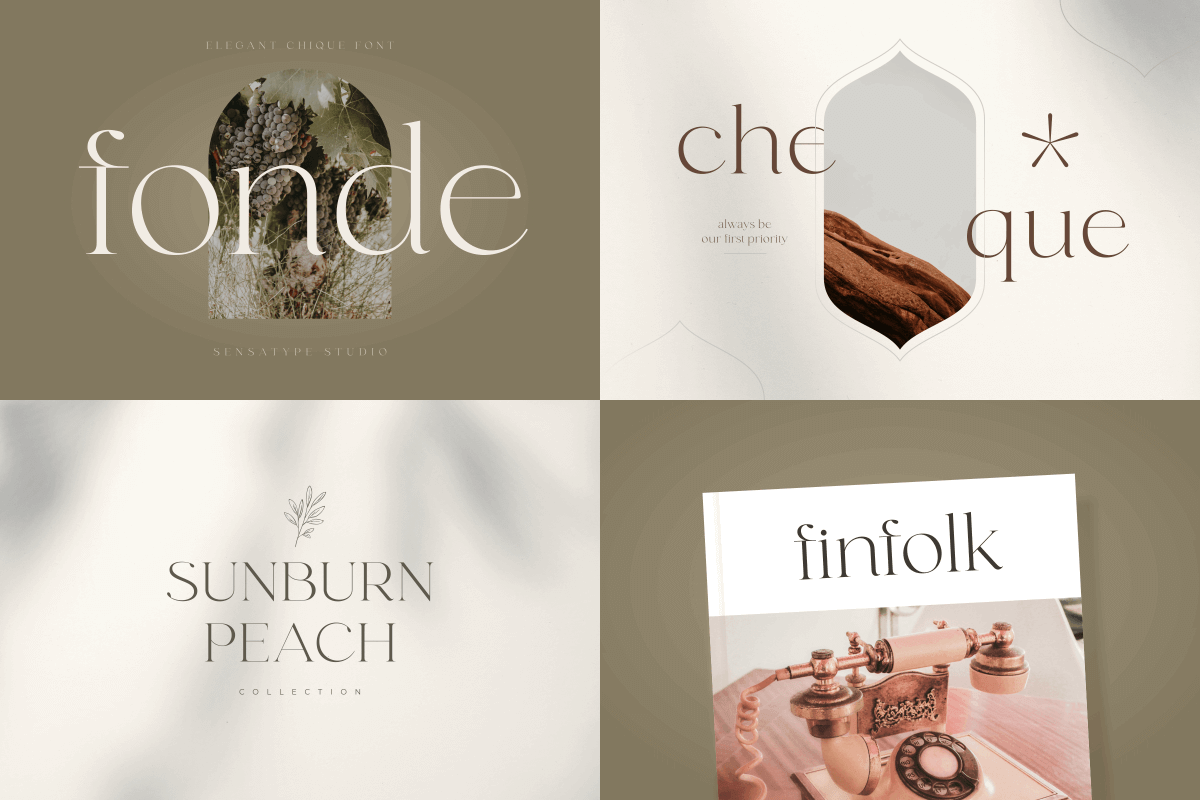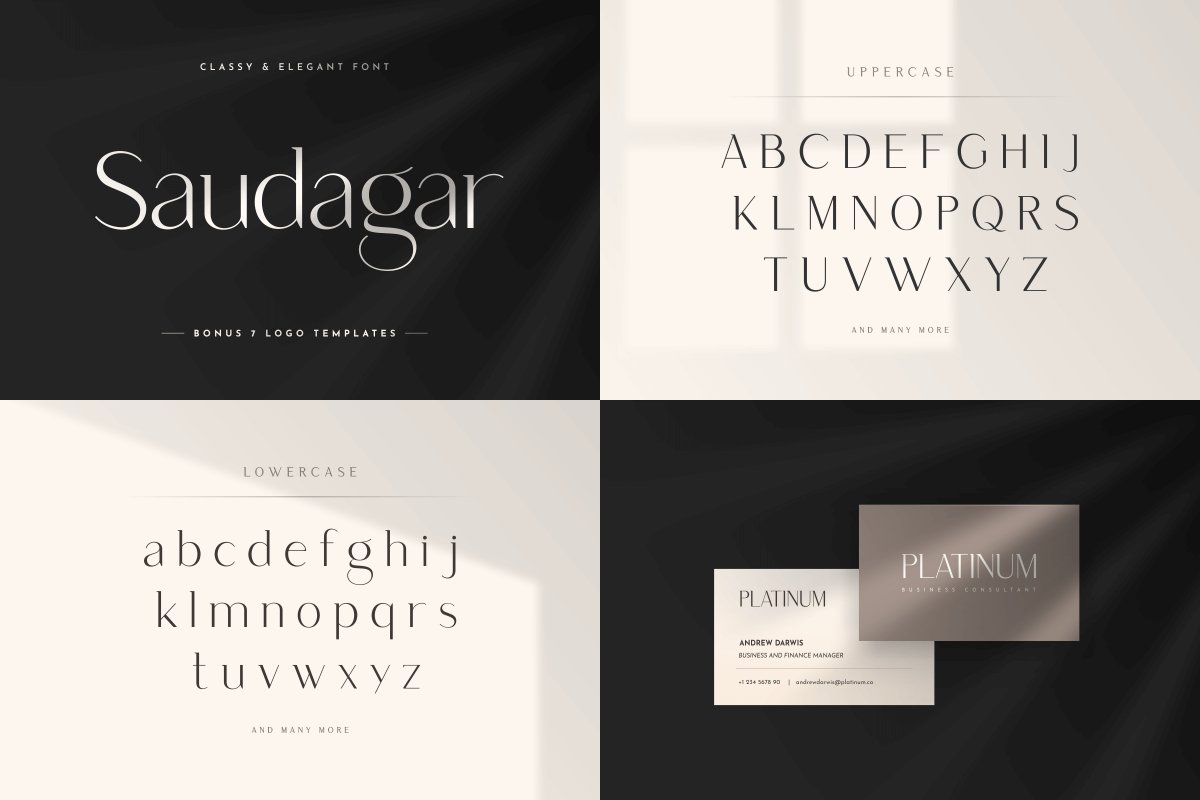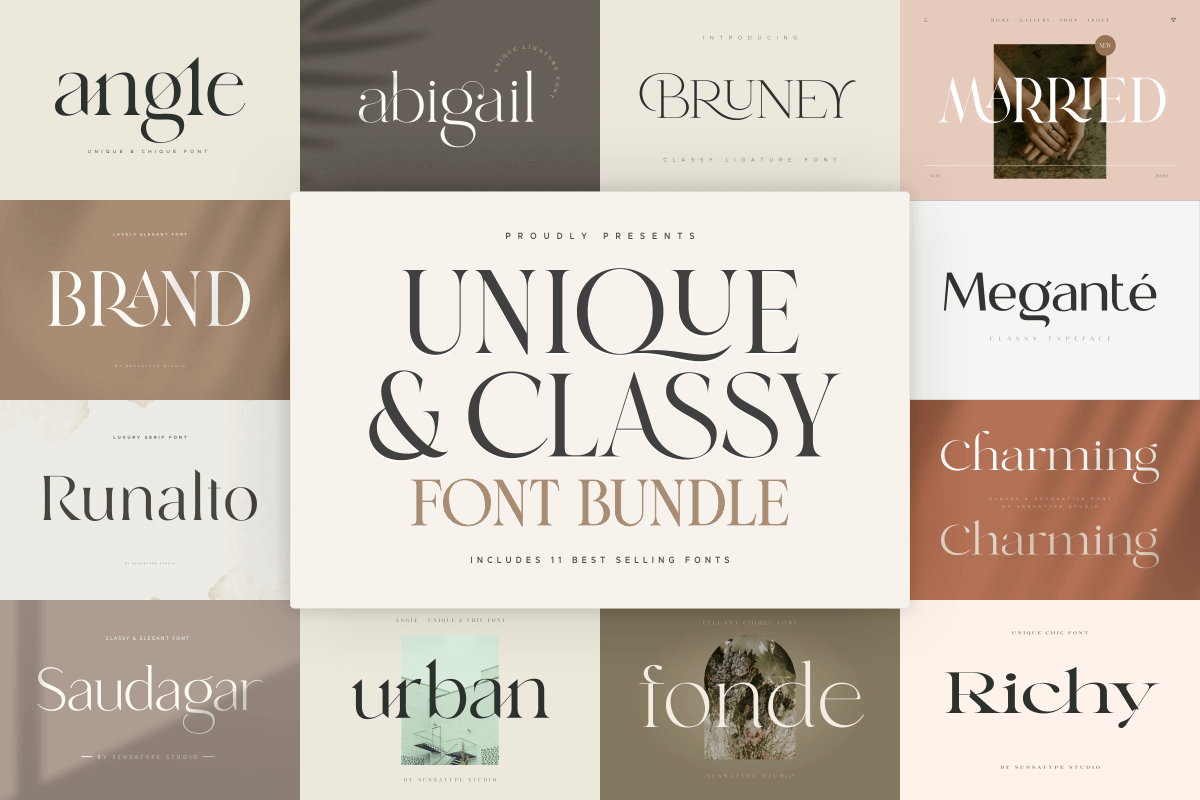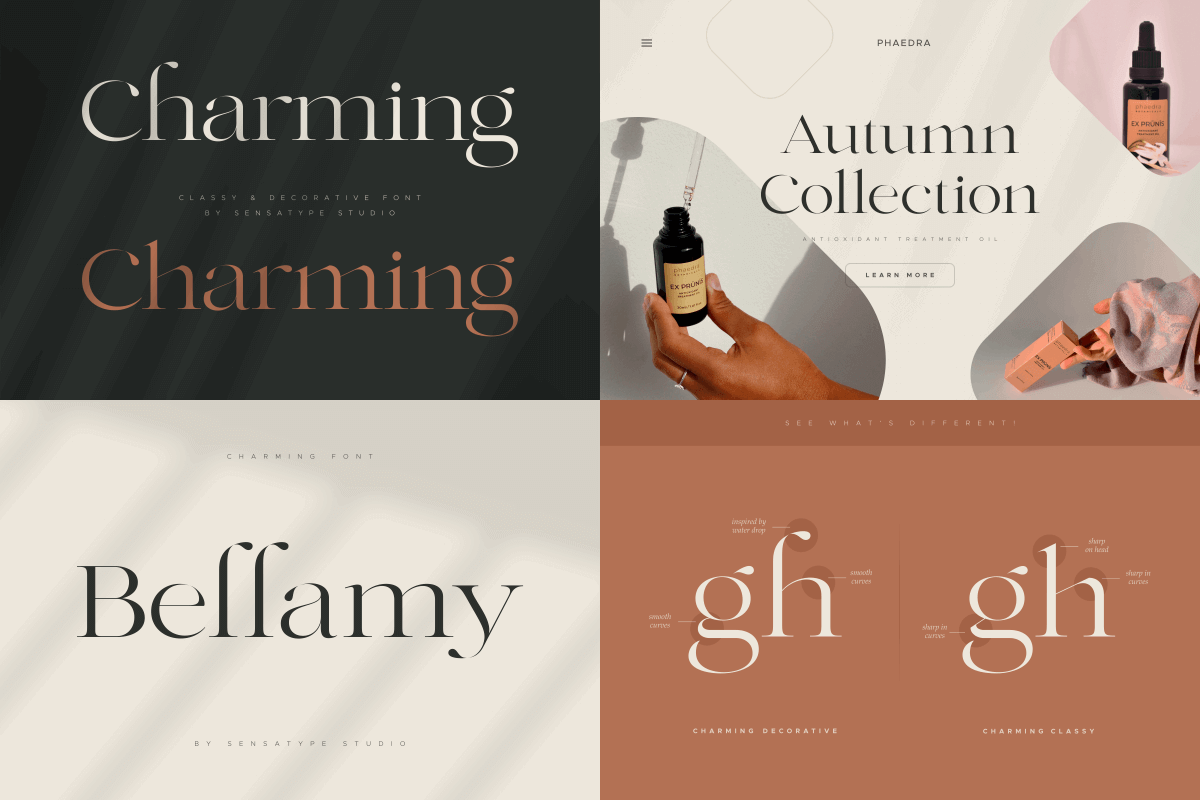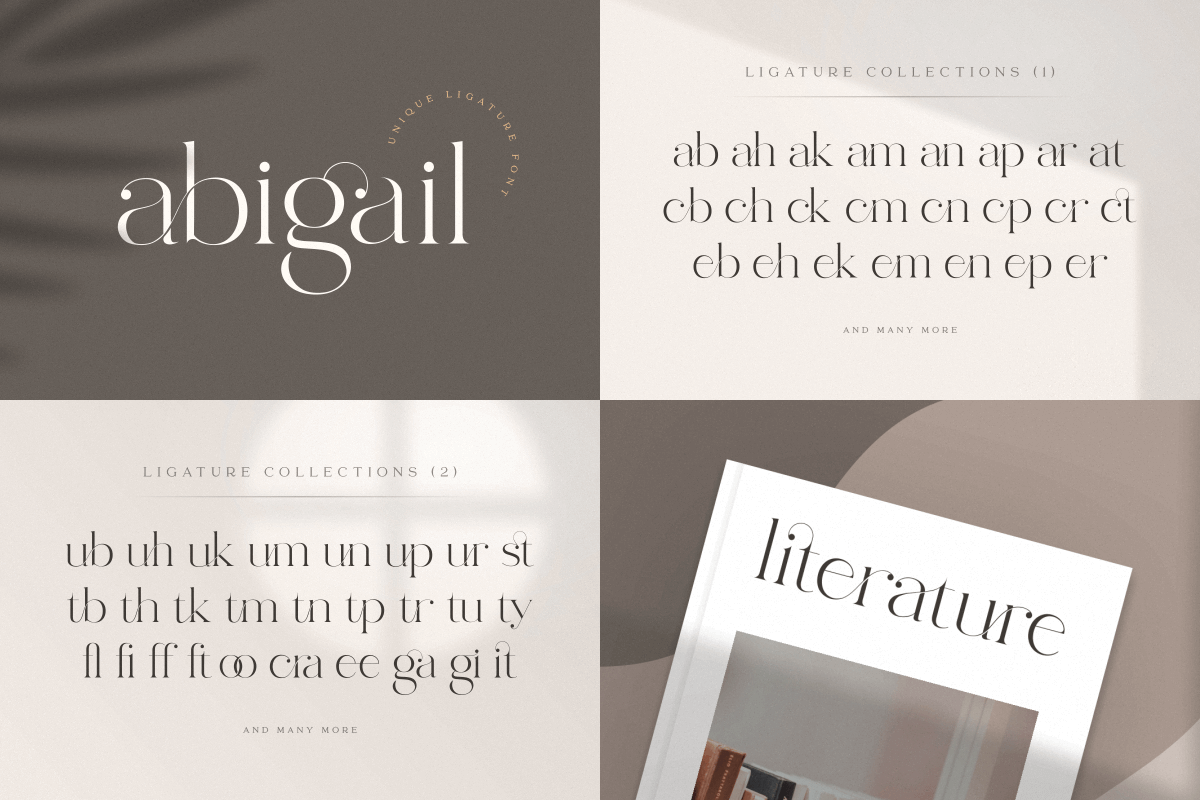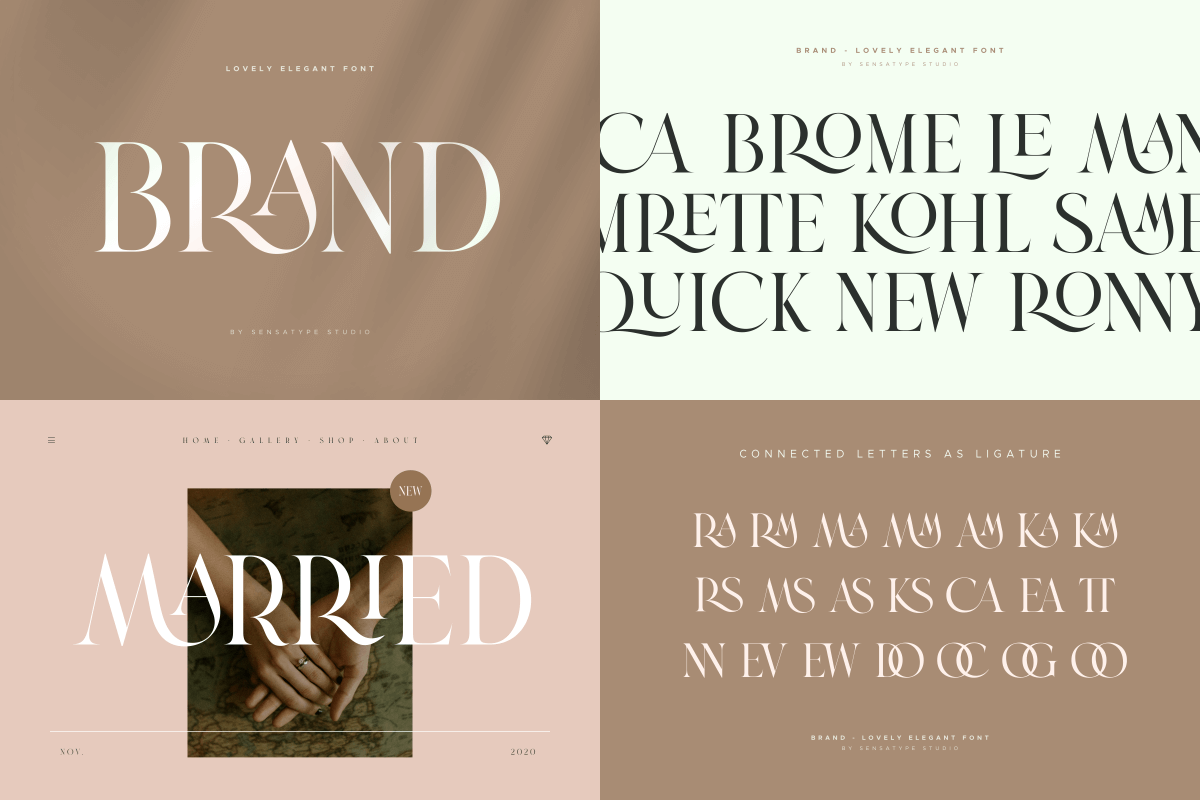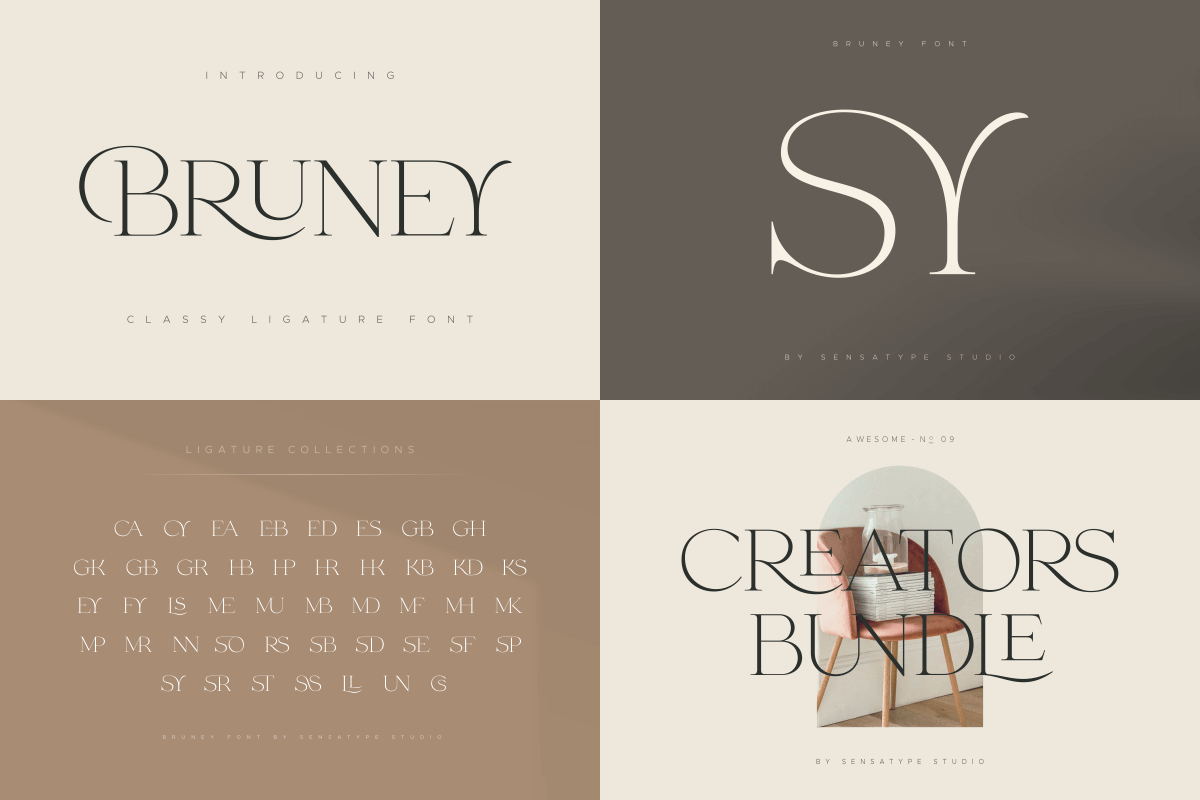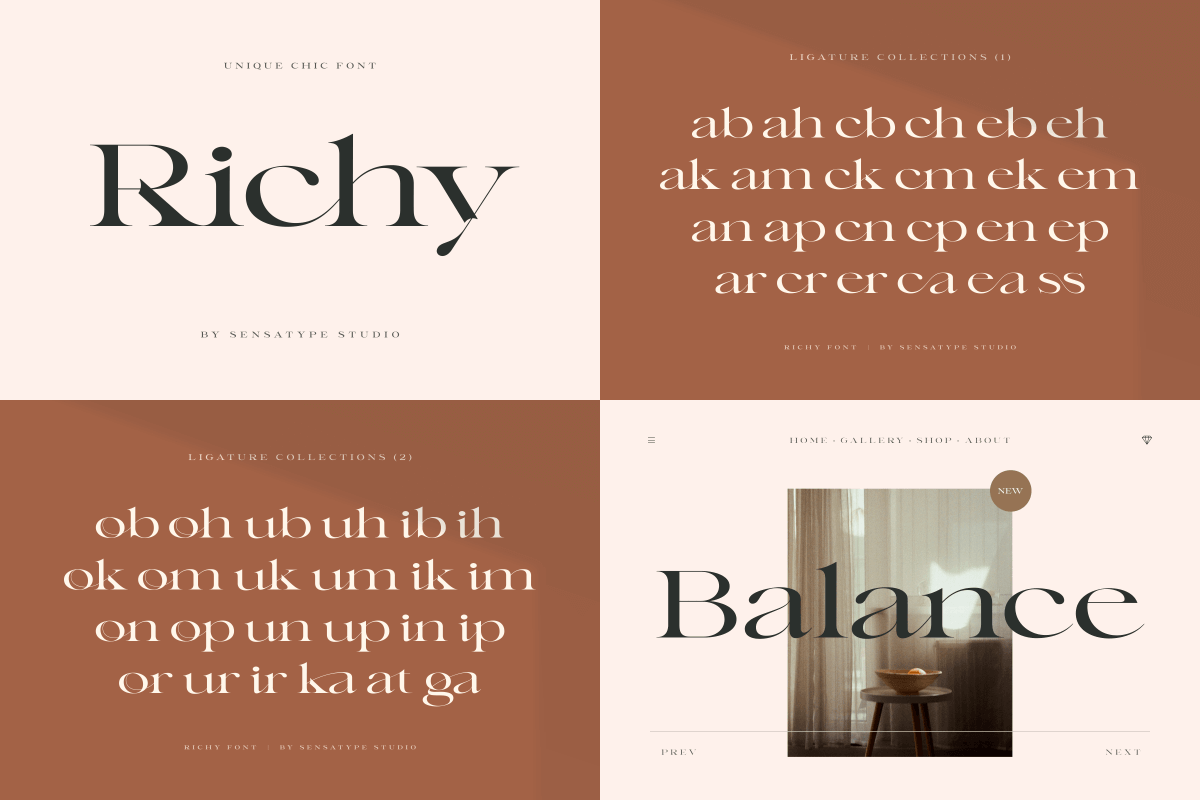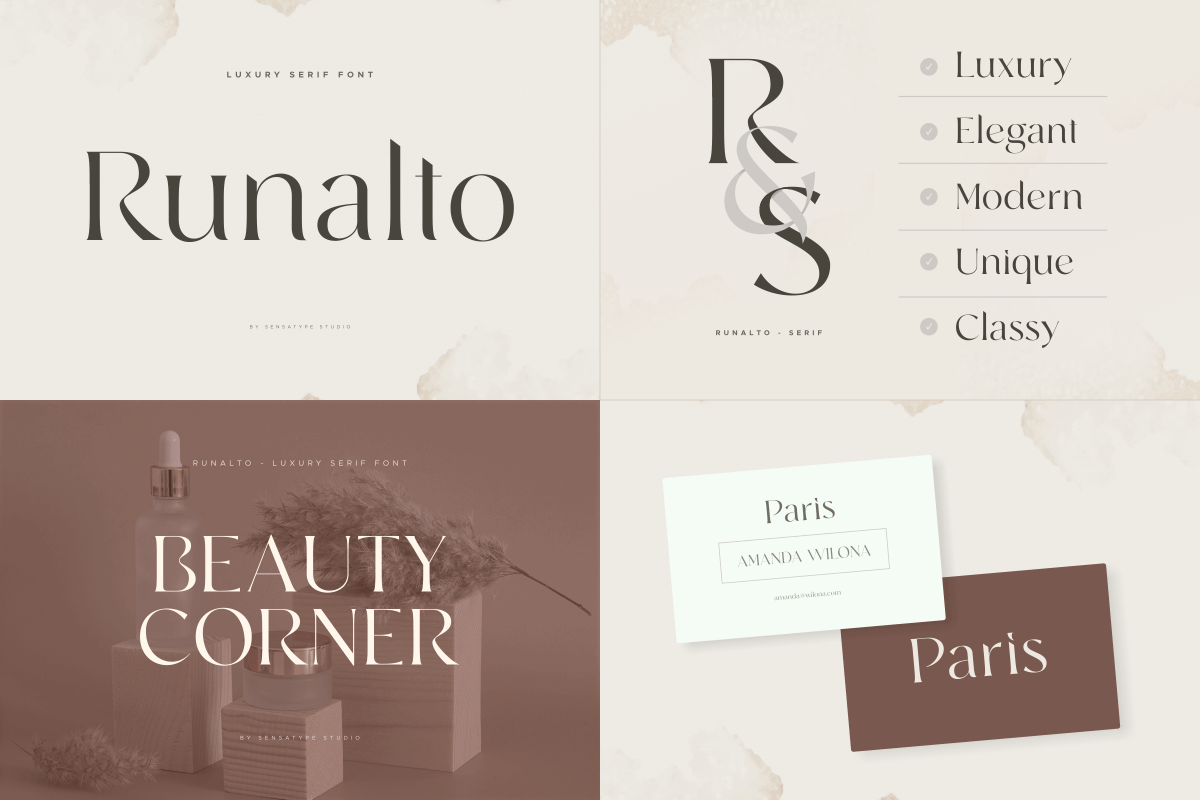
Based on our experience as a graphic designer who works for a lot of companies, we often are requested to design a logo in a unique style but with a Classy feels. So, we try to brainstorming and create some of unique font to make the idea is going out with ready to use easily. This is perfect for BRANDING and LOGO DESIGN. You will get unique, classy, elegant, and certainly beauty to make your branding or design projects more standout with this font.
BEST-SELLING FONTS IN THIS BUNDLE:
Uppercase and lowercase letters
amazing fonts, love them so much! The only thing that was a bummer was that the package doesn't include the "married" font that's in the picture, which I really loved! Luckily it wasn't the main font I purchased the kit for. Love the modern yet characteristic spin on these fonts. I am sooo happy with my designs so far, thank you!!